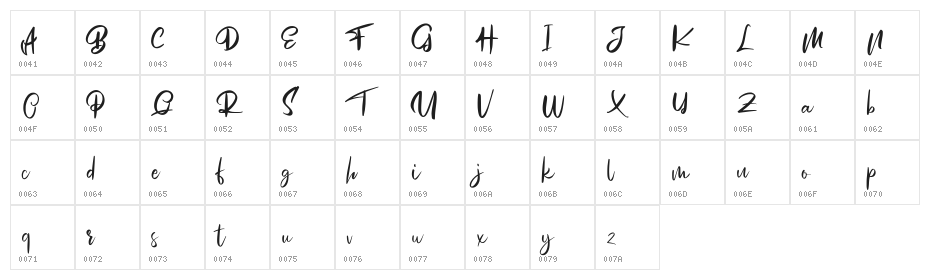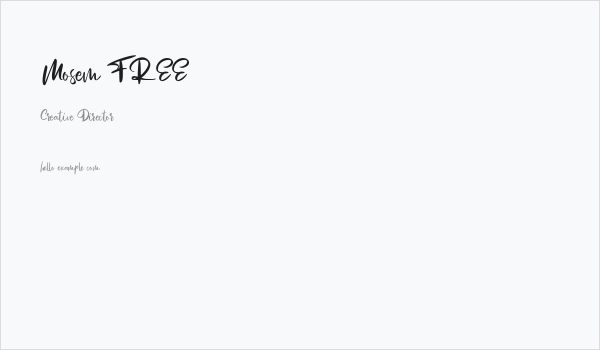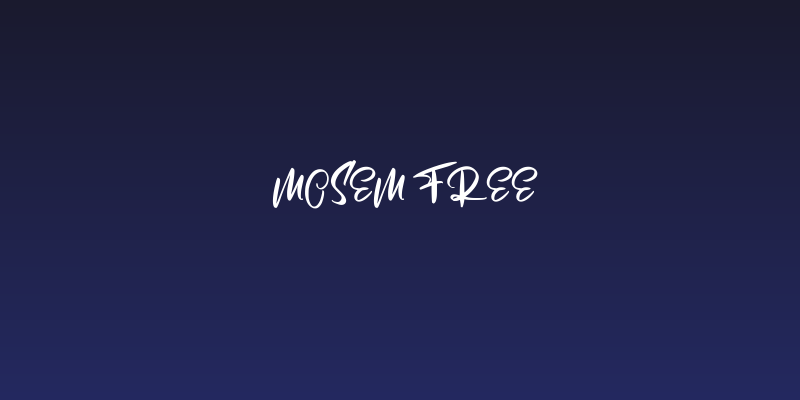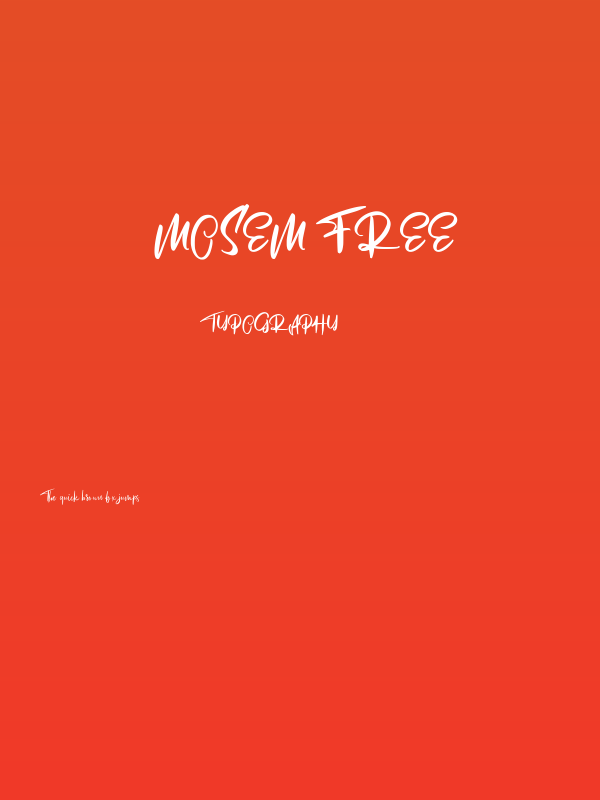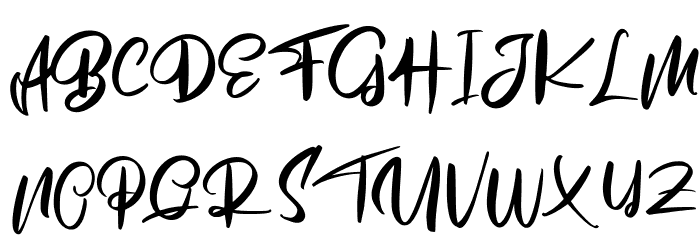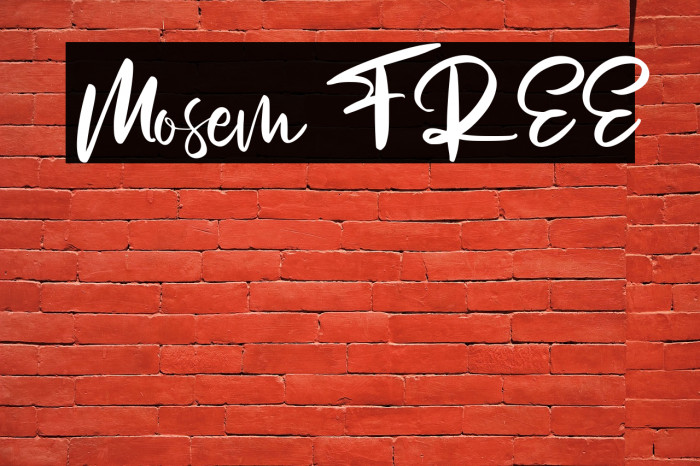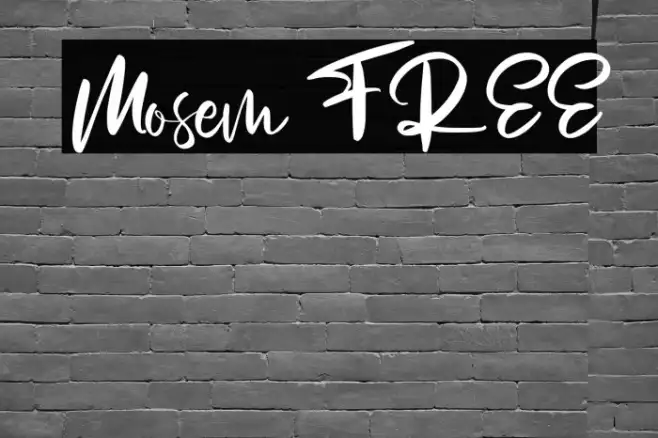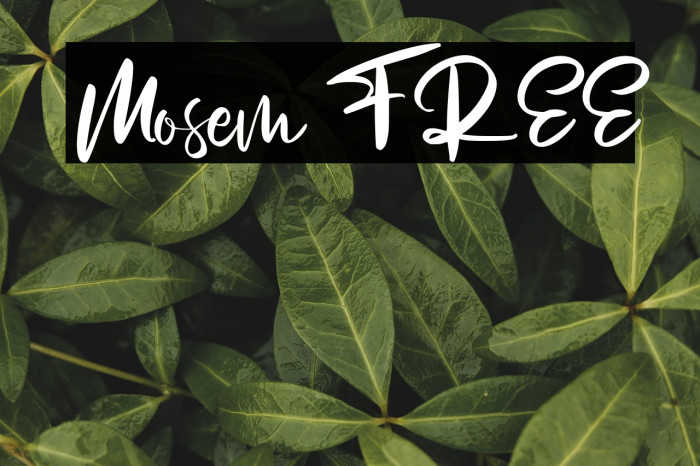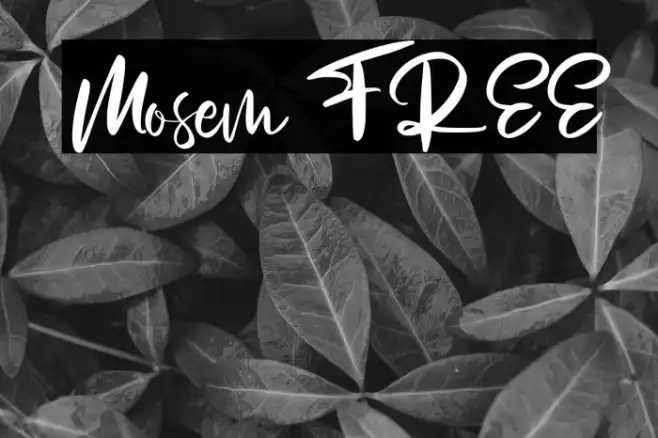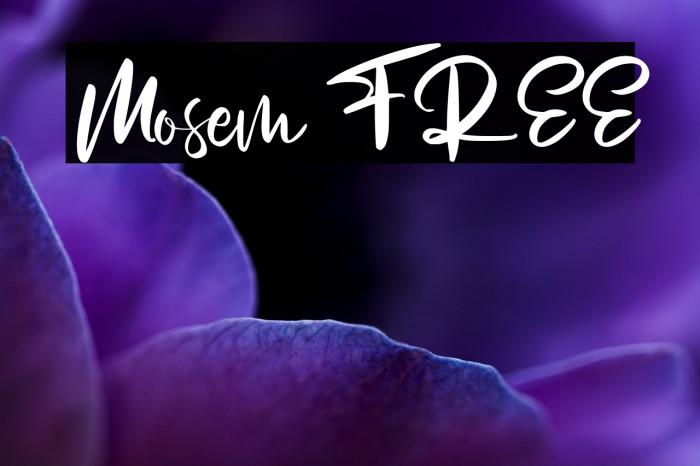
Mosem FREE Font
Mosem FREE Description
This font features a dynamic and expressive handwritten style, characterized by its fluid strokes and varying line thickness. The uppercase letters exhibit a bold and confident appearance, with a slight slant that adds a sense of motion and energy. The lowercase letters maintain a consistent flow, enhancing readability while retaining the artistic flair. The numerals and special characters complement the overall design, making it versatile for creative projects. The font's playful yet elegant nature makes it suitable for a variety of applications, from branding to personal projects.